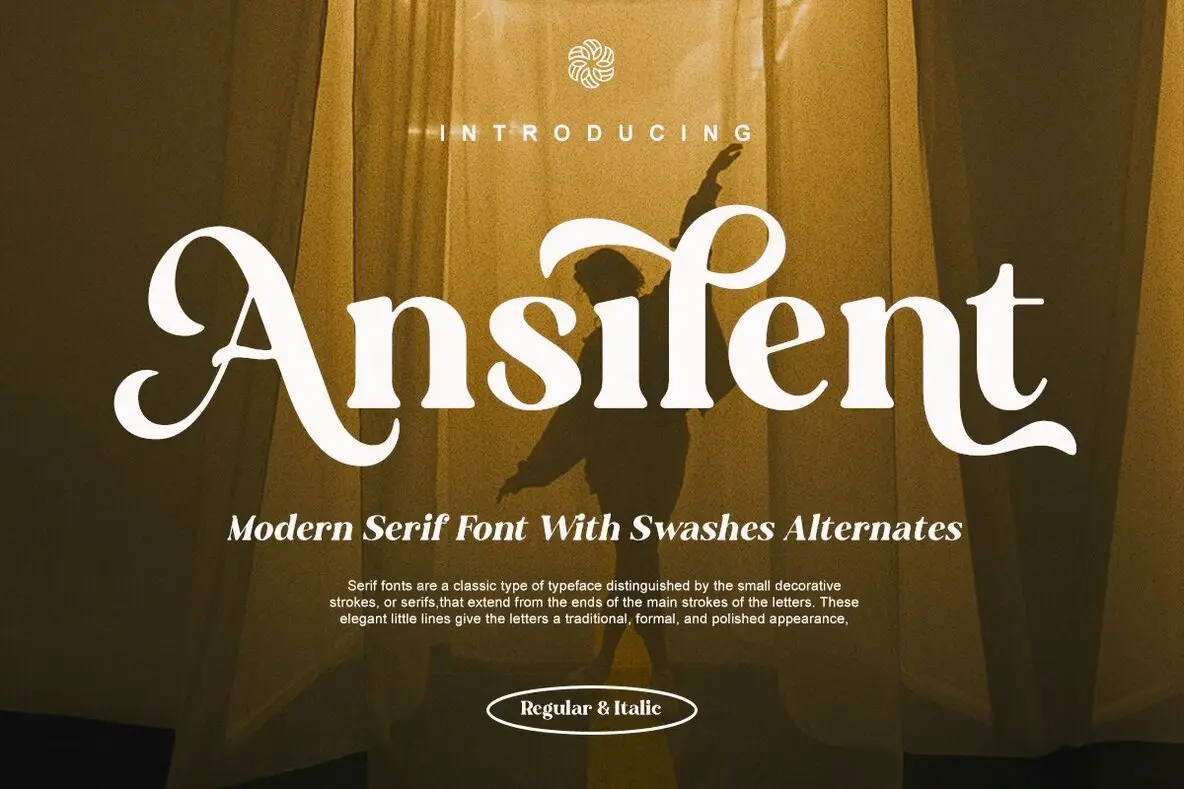
Ansilent Font
Discover Ansilent, a captivating modern serif font that seamlessly blends sophistication and nostalgia. Designed to elevate your creative projects, Ansilent features exquisite swash alternates, making it a perfect choice for crafting impactful headlines and distinctive logos. This versatile font adds a nostalgic yet elegant touch to designs, whether you're creating logos, packaging, or editorial pieces.Ansilent: Modern Serif Elegance